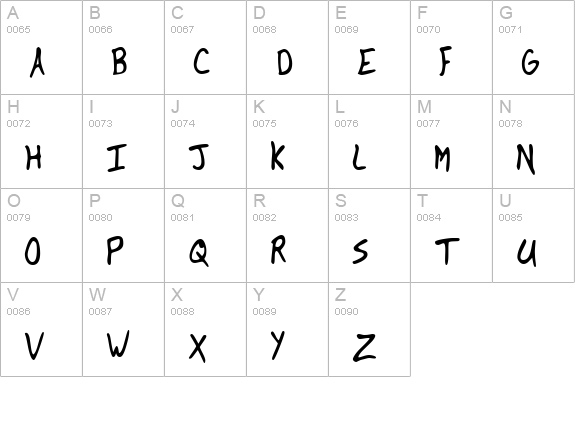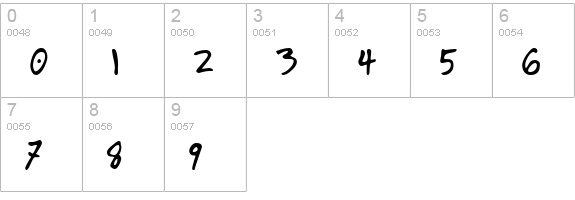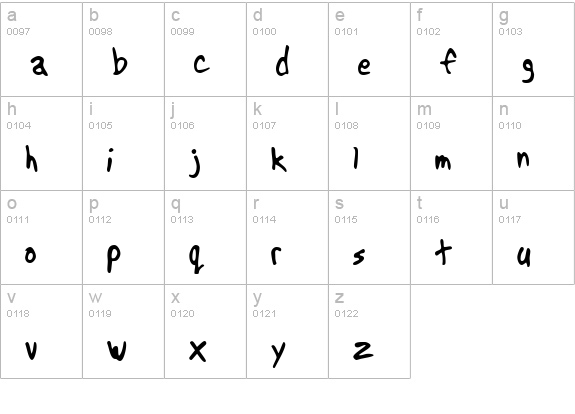
Another Font Details
Another font is a versatile and elegant typeface that is perfect for a wide range of design projects. With its clean lines and modern aesthetic, this font is sure to make your text pop and stand out. Whether you're designing a website, creating a logo, or working on a print project, Another font has got you covered. The best part about Another font? It's completely free! You can download it right now at FontsMarket.com and start using it in your projects instantly. Don't miss out on this amazing opportunity to add a touch of sophistication to your designs with Another font. Download it today and elevate your work to the next level.